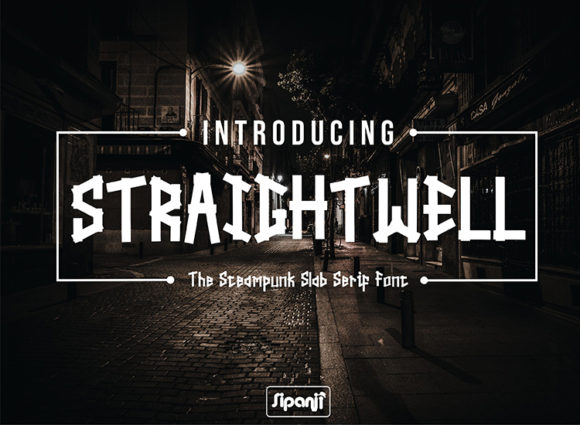
How Straightwell Transformed My Campaign Visuals
I was knee-deep in prepping a product launch for a new skincare line, and the visuals just didn’t feel right. The headlines were too soft, the callouts lacked punch, and the overall message wasn’t cutting through the noise. That’s when I stumbled on Straightwell, a modern slab serif font with a bold, straightforward attitude that instantly made my designs pop.
A Font That Speaks Volumes
Straightwell is more than just a typeface—it's a design statement. With its clean lines, strong serifs, and confident weight, it brings clarity and authority to any message. It feels like a voice you can trust, one that cuts through the clutter of social feeds and digital ads. Whether it's a sale announcement or a product teaser, this font makes your words stand out without shouting.
The visual style of Straightwell is both contemporary and grounded. It’s not overly ornate, but it carries enough character to make your content feel intentional. It works especially well in campaigns where you want to convey strength, reliability, and a touch of modernity.
Putting Straightwell to Work in Real Campaigns
One of the first places I used Straightwell was in my Instagram post series for the skincare launch. I needed something that would grab attention in a fast-scrolling feed, and this font delivered. I paired it with a minimalist sans serif for body text, which created a nice balance between bold headlines and easy-to-read content.
For YouTube thumbnails, I used Straightwell in a darker shade against a light background. The contrast made the title immediately readable even at small sizes. It also worked well for webinar banners and email headers, where first impressions matter most.
When designing Pinterest pins for the same campaign, I leaned into the slab serif’s structured look. It gave the pins a professional yet approachable vibe—perfect for a brand targeting eco-conscious consumers looking for reliable products.
Why Straightwell Works for Marketers
As a marketer, I know that readability and visual hierarchy are everything. Straightwell helps establish clear visual hierarchy by making headlines and callouts stand out. Its consistent stroke width and sharp edges ensure that text remains legible even in small previews or mobile screens.
It’s also a great choice for short headlines, promotional labels, and logo-style text. In a world where attention spans are short, having a font that communicates clearly and confidently is a game-changer. Straightwell doesn’t just look good—it makes your message easier to recognize and remember.
For campaigns that need a touch of personality without being too flashy, this font strikes the perfect balance. It adds a sense of authority while still feeling modern and accessible.
Readability Tips for Different Surfaces
One thing I learned early on is that fonts behave differently across platforms. Straightwell performs exceptionally well on dark backgrounds, especially when used with high-contrast colors. It also holds up nicely on light backgrounds if you choose the right color palette.
When designing for mobile screens, I found that keeping the text size large enough and using ample spacing between characters helped maintain readability. For thumbnails and image overlays, I’d recommend avoiding overly complex layouts and letting the font do the talking.
Font Pairing and Practical Use Cases
I’ve experimented with pairing Straightwell with different fonts, and it plays well with clean sans serifs like Helvetica Neue or Montserrat. This combination gives your design a modern yet professional look, ideal for web banners, landing pages, and promotional emails.
It also works surprisingly well with script or handwritten fonts for a more creative twist. Just be careful not to overdo it—keep the focus on the message.
Some of the best use cases I’ve found for Straightwell include:
- Sale announcements and limited-time offers
- Product teasers and launch countdowns
- Quote graphics and motivational posts
- Webinar banners and course promotions
- Email headers and newsletter titles
- Online shop promotions and branded content series
What to Check Before Using Straightwell
Before diving into a campaign, I always double-check what comes with the font. Does it include multiple weights, alternates, or ligatures? Are there multilingual options available? And most importantly, does it come with a commercial license that covers all the uses I have in mind?
For campaigns involving digital ads, merchandise, or client work, ensuring that the font has proper licensing is crucial. I also like to review the file formats (OTF, TTF, WOFF) to make sure they’re compatible with the tools I use for web and print design.
Even though Straightwell is a slab serif, it’s versatile enough to fit into various design systems. Whether you're working on editorial design, packaging, or web projects, this font can help elevate your brand identity without feeling outdated or too trendy.
In the end, choosing the right font isn’t just about aesthetics—it’s about how well it supports your message. Straightwell did more than just improve the look of my campaign; it helped clarify the message, strengthen the brand, and ultimately drive better engagement from my audience.